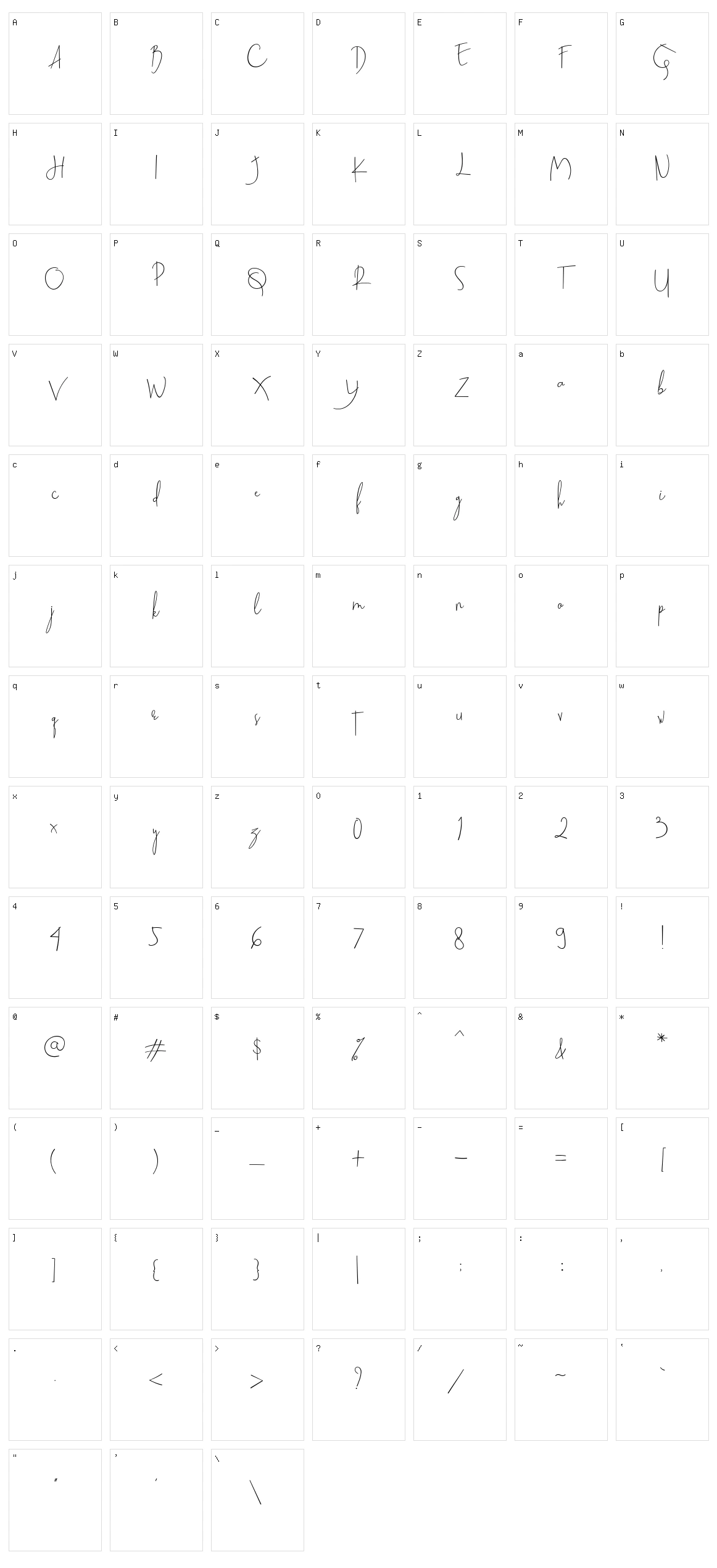
The free font Beatrix Signature is carefully designed by Motokiwo, showcasing a thoughtful balance of creativity and usability and falls under the Script font style. When you download the ZIP file, it contains only 63.28 KB of font files, making it lightweight and quick to download. Please review the license details below to understand permitted usage and distribution rights. If license information is not available, we recommend using this font for personal projects only or contacting the author directly for commercial usage permissions.